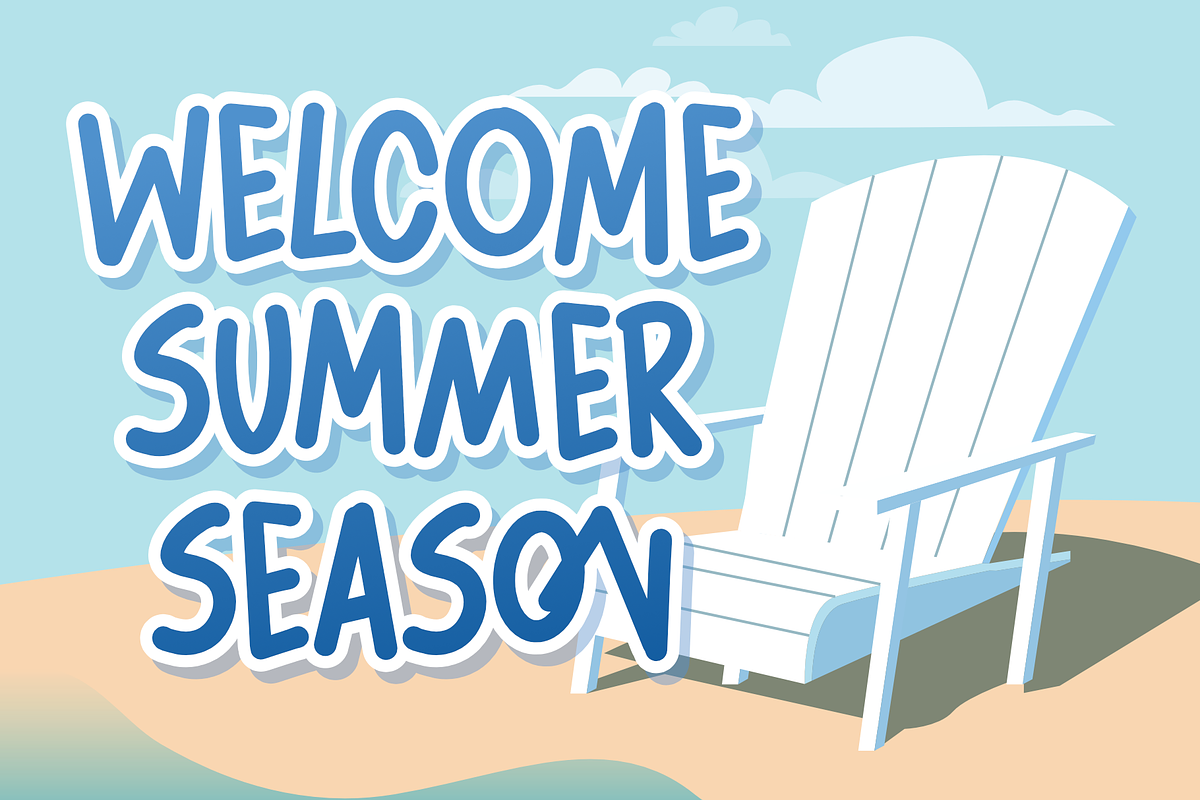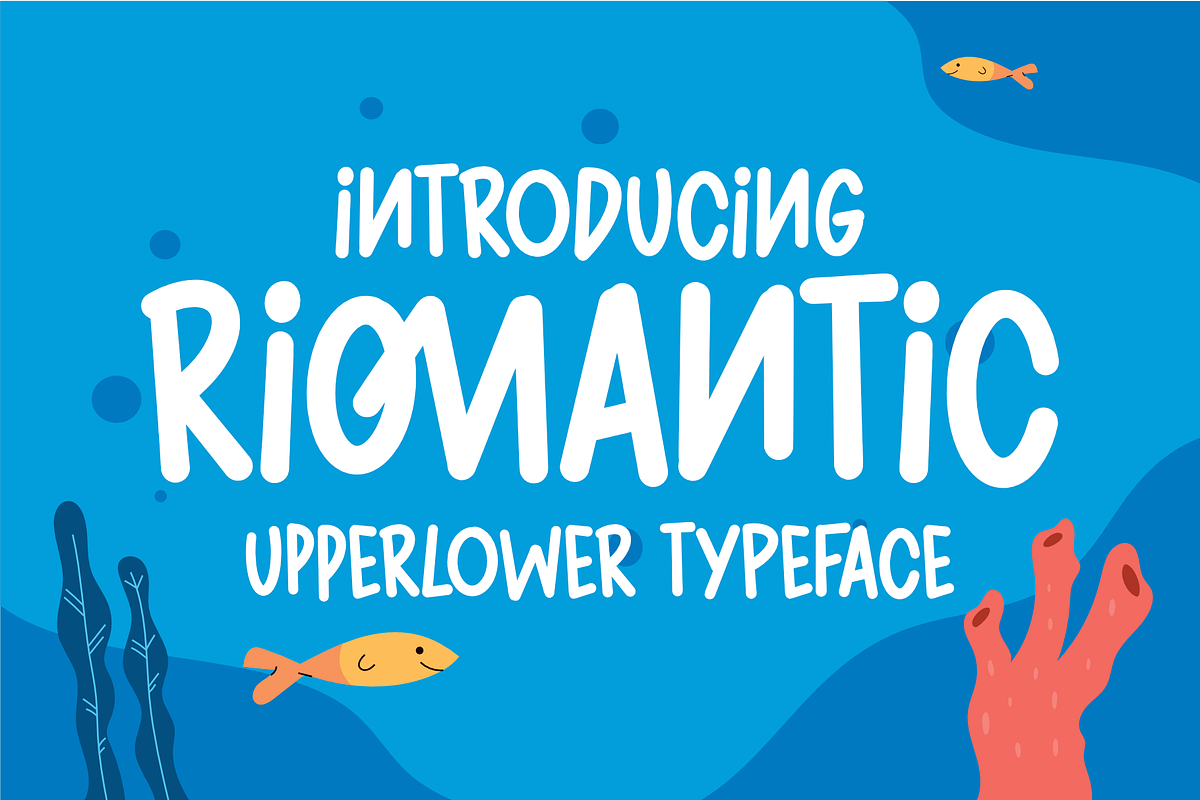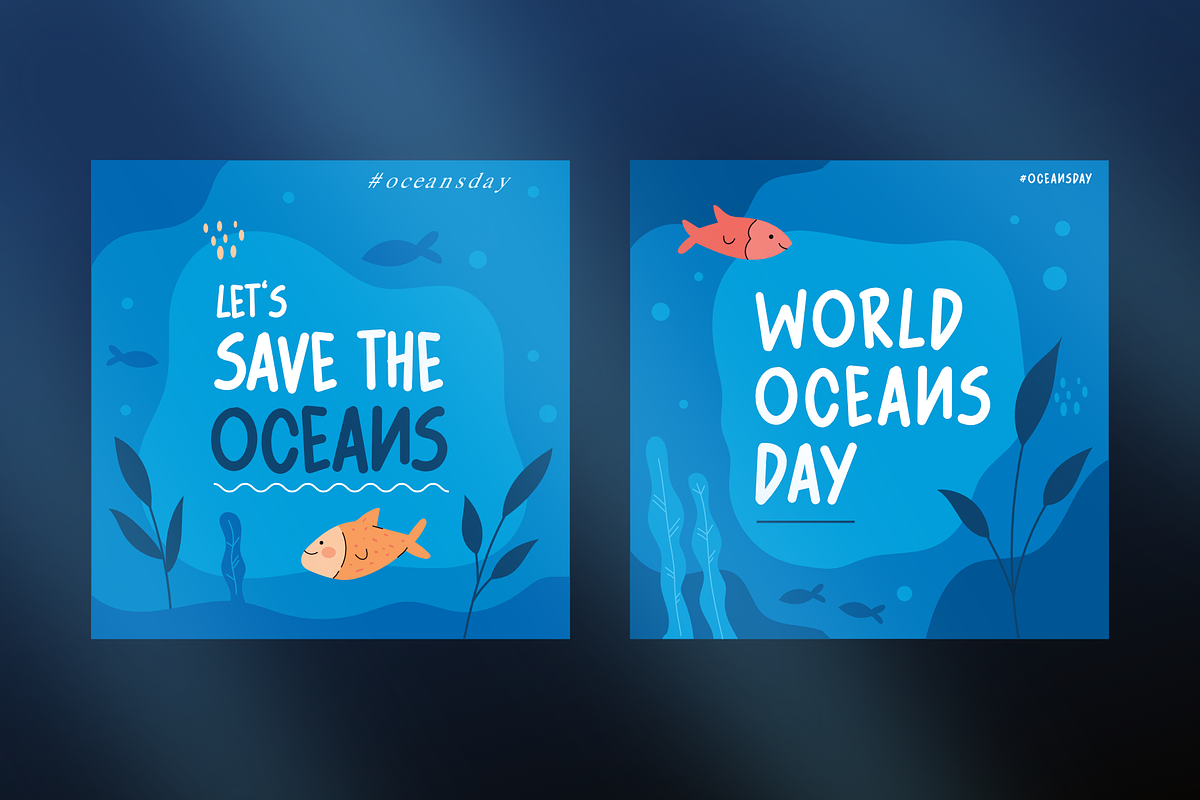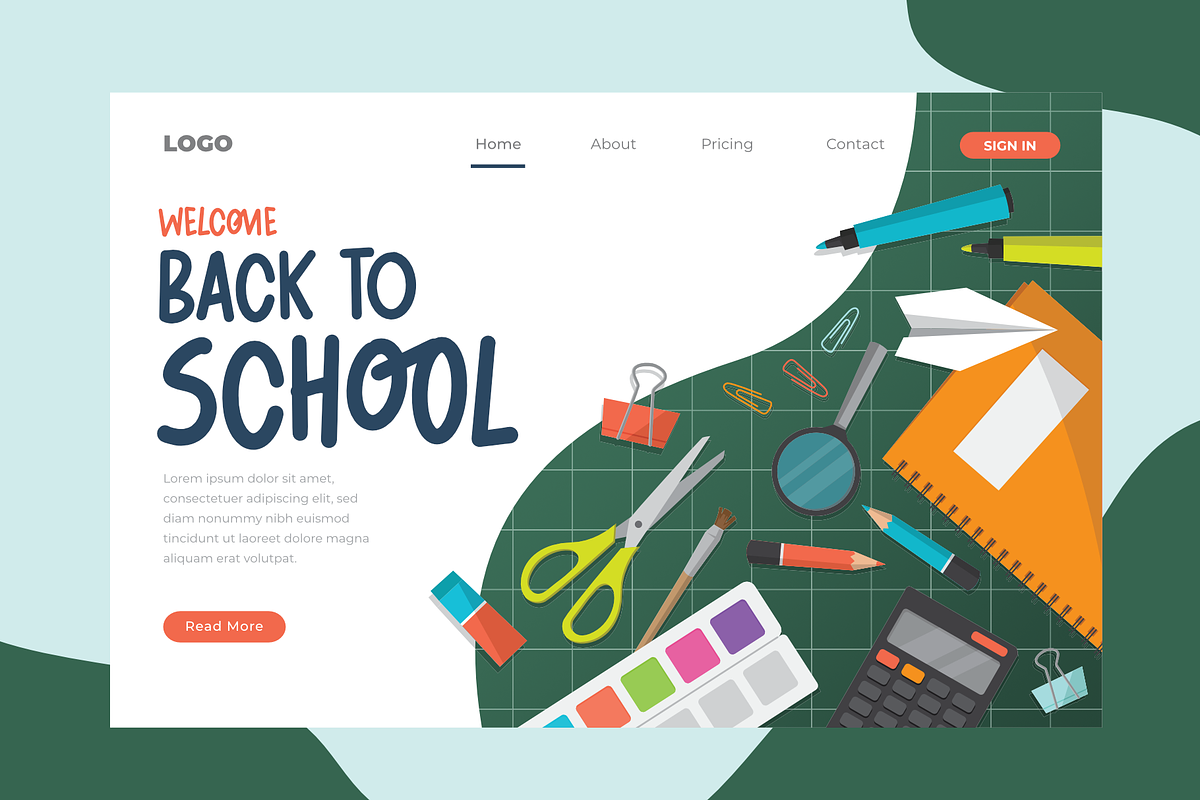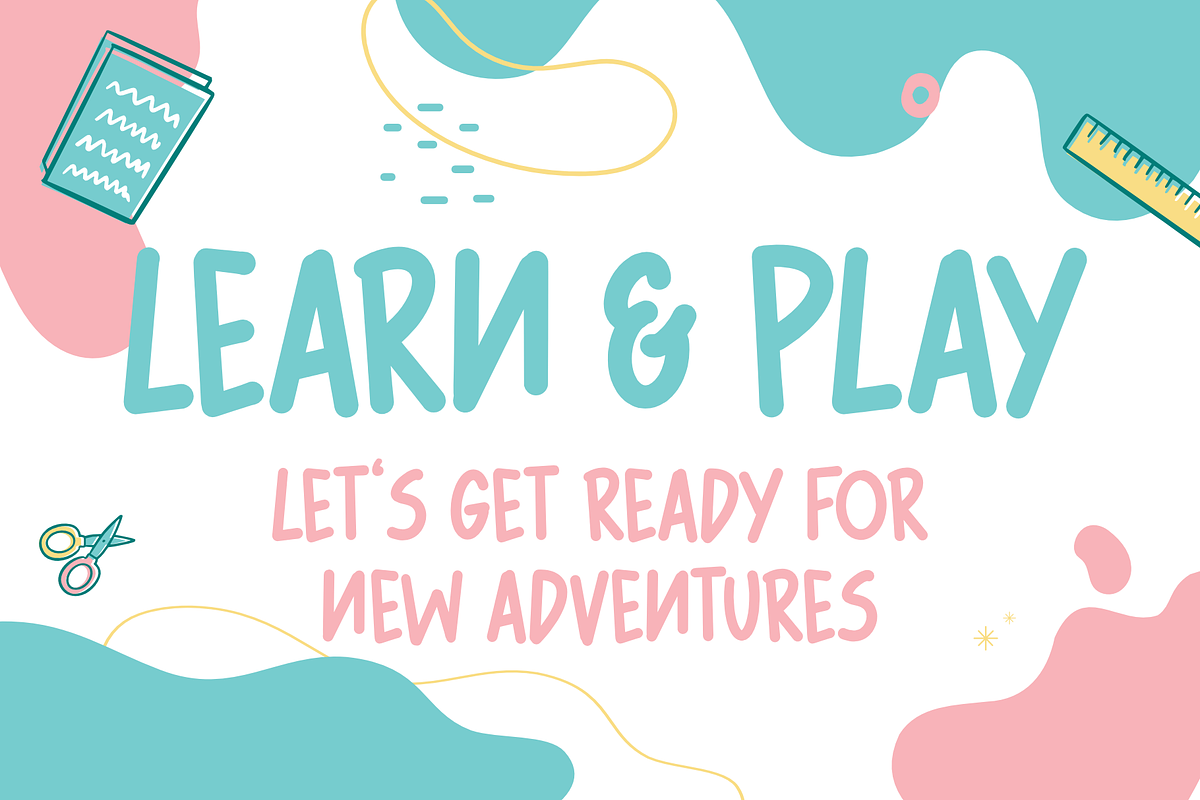
Riomantic
Riomantic is a quirky casual font that can complement any craft project.
Riomantic is perfect for designing Instagram, social media branding, event titles, and more.